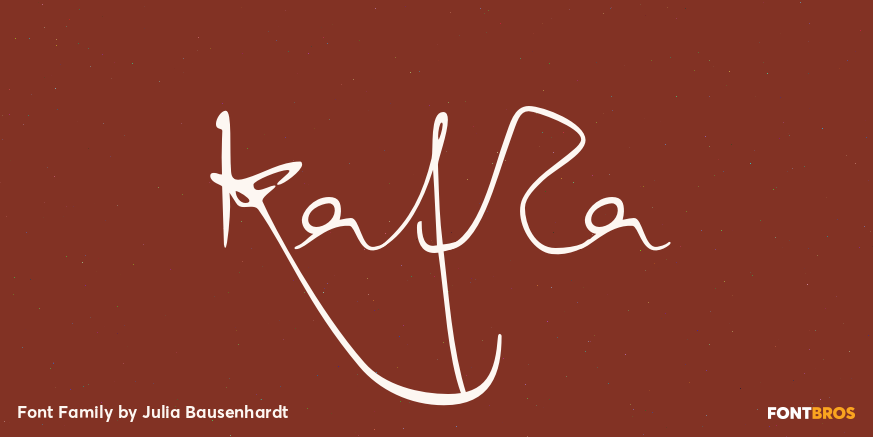
Kafka
This font is based on the handwriting of author Franz Kafka and captures his expressive handwriting style, using the manuscript of ?The Process? and his diaries as the primary reference. The font presents the elegance and nervousness with which he wrote…